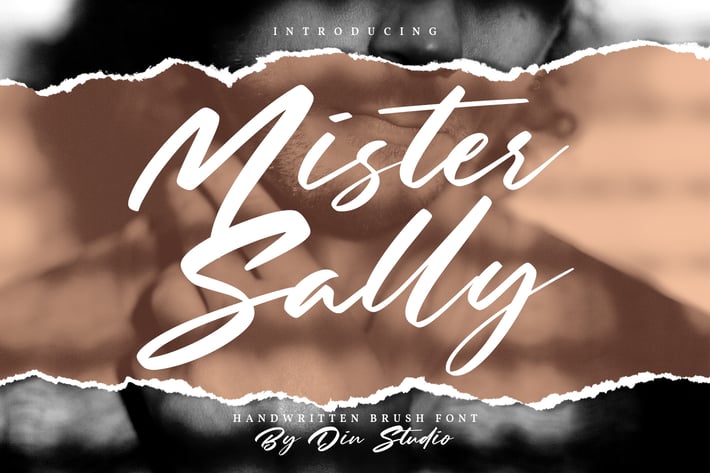
Mister Sally-Beautiful Handwritten Brush Font
Din-Studio
Mister Sally is a handwritten brush font. With a classy and beautiful handwritten style, it brings a classy and chic typeface. Made for any professional projects. Mister Sally is best used for weddings, branding, logotype, and quotes.
- Beautiful Ligatures